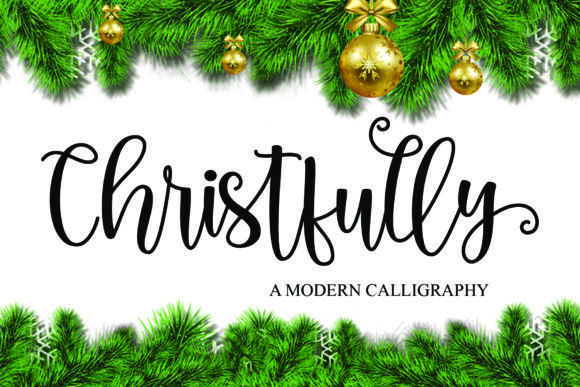
Discover the Elegance of Christfully Font
Have you ever stared at a blank page, struggling to find the perfect words to express your creativity? I know I have. But sometimes, all it takes is the right font to spark inspiration and bring your ideas to life. For me, that font is Christfully. This beautiful script font is more than just a pretty face – it’s a tool that can elevate your designs and make them truly unforgettable.
Christfully Font is a delicate and refined script font that exudes elegance and sophistication. With its PUA encoding, designers can easily access all glyphs and swashes, giving them the freedom to get creative and experiment with different styles. Whether you’re working on a wedding invitation, a branding project, or a simple blog post, Christfully Font is sure to bring a touch of class and refinement to your designs.
Christfully Font Key Features
- Font Family: Christfully Font is a unique, hand-drawn script font family with a variety of styles and weights.
- Character Set: Includes uppercase and lowercase letters, numbers, punctuation marks, and special characters, making it suitable for a wide range of applications.
- Unique Characteristics: Christfully Font features intricate, swirling lines and subtle flourishes, giving it a whimsical and elegant feel.
Christfully Font Review
As a designer, I’ve had the chance to work with Christfully Font, and I must say, it’s a mixed bag. Let’s start with the positives ✨. The font has a beautiful, elegant feel to it, perfect for any project that requires a touch of sophistication. The subtle curves and refined lines make it a great choice for titles, headings, and any other text that needs to stand out.
The font is also highly legible, even at smaller font sizes, which is a must-have for any font in my book. The character set is comprehensive, covering all the necessary languages and special characters.
However, there are a few limitations to consider ⚠️. Firstly, the font lacks a bold weight, which can make it difficult to use in situations where you need to emphasize text. Additionally, the font’s italic styles can be a bit inconsistent, which can affect the overall readability of the text.
- May not be suitable for use in situations where a bold weight is required
- Italic styles can be inconsistent
Overall, I think Christfully Font is a solid choice for designers who want a elegant, sophisticated font. While it may have its limitations, the positives far outweigh the negatives. With a bit of creative tweaking, I’m sure it can be used to create some truly stunning designs.
Tips for Getting the Most Out of Christfully Font
For best results, use Christfully Font in conjunction with a clean and simple design aesthetic. Avoid using it in overly complex or busy layouts, as it can get lost in the design.
Experiment with different font sizes and colors to find the right balance for your design.
Christfully Font is ideal for use in:
- Church or faith-based publications
- Wedding invitations or programs
- Christian-themed merchandise or branding
Alternatives to Christfully Font for Designers
Playfair Display is a high-end, elegant serif font that excels at creating luxurious and sophisticated designs. It’s perfect for titles, headings, and other prominent text elements. Compared to Christfully Font, Playfair Display has a more refined and classical feel, making it ideal for high-end branding, magazines, and advertising.
Amaranth
Amaranth is a calligraphic script font that adds a touch of sophistication and elegance to any design. It’s great for creating unique and memorable brand identities, as well as adding a personal touch to invitations, menus, and other event materials. Compared to Christfully Font, Amaranth has a more fluid and organic feel, making it suitable for designs that require a sense of whimsy and personality.
Does Christfully Font support Unicode characters?
Yes, Christfully Font supports a wide range of Unicode characters, including Latin, Greek, and Cyrillic scripts. It also includes a variety of special characters, such as punctuation marks and symbols. However, please note that some Unicode characters may not render correctly on all devices or platforms.